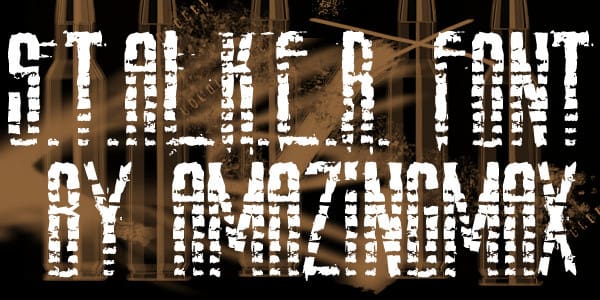
Amaz Stalker Font
Amaz Stalker Font is a bold and timeless display font that mimics the stamp effect on envelopes and pancakes. Its letters have just the right amount of roughness to create the desired effect with a natural look. This font looks best used for headings and logos.